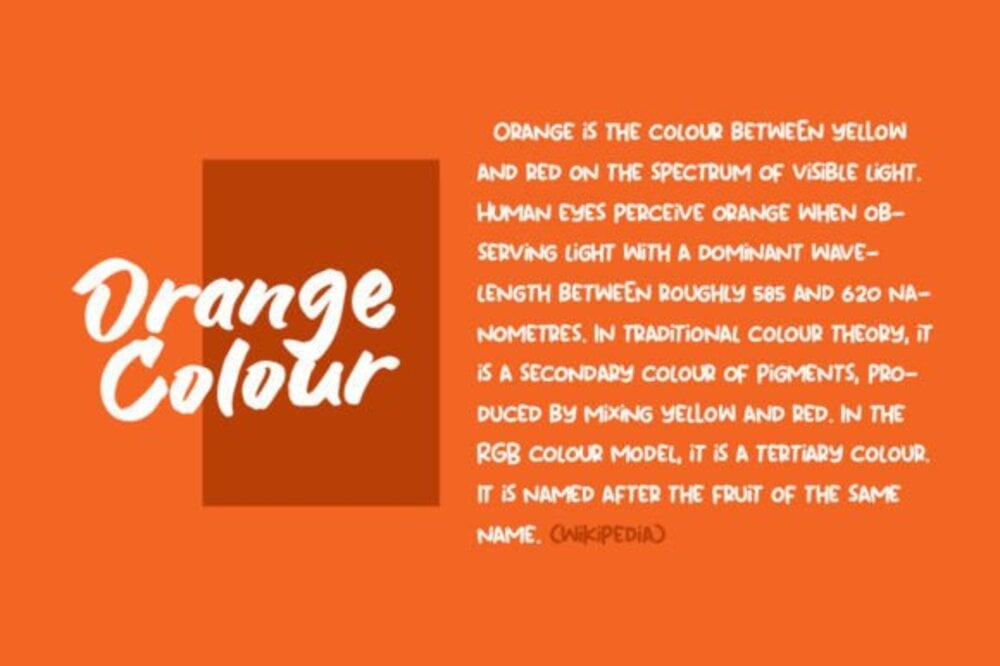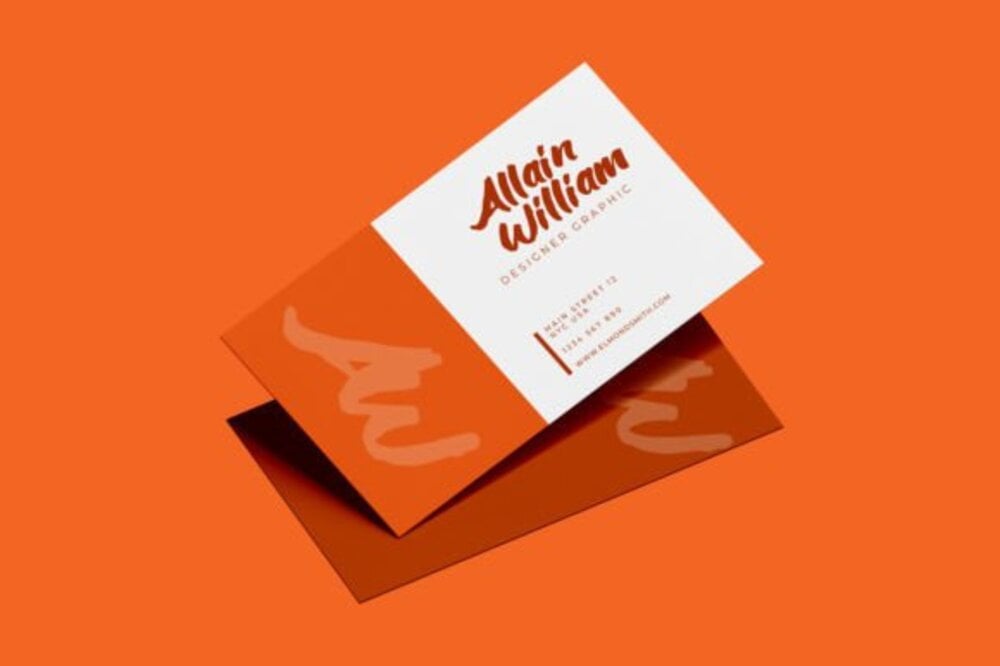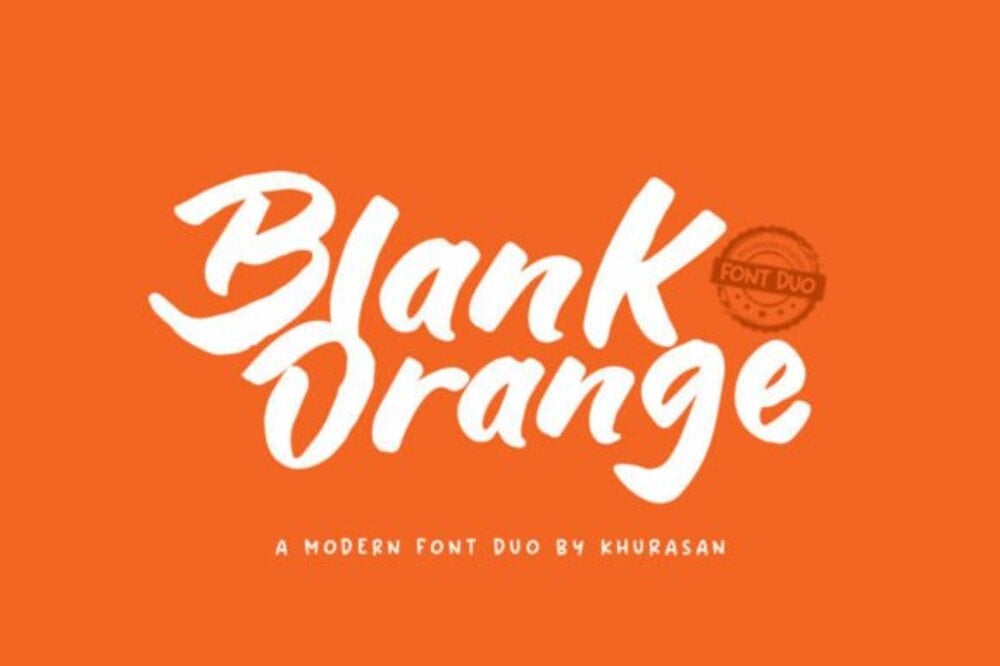
Blank Orange Font
Blank Orange is a clean and modern sans-serif font with a friendly and approachable feel. Its neutral yet distinct design makes it highly versatile, suitable for a wide range of applications. From branding and web design to editorial layouts and packaging, Blank Orange offers excellent readability and a contemporary aesthetic. It’s a reliable and adaptable choice for any project.